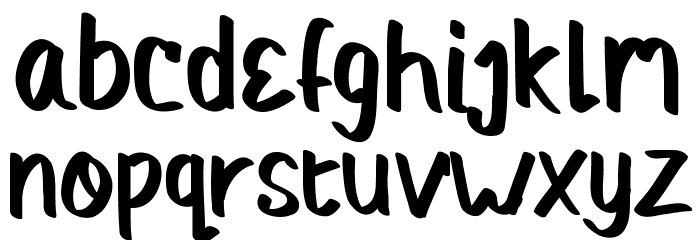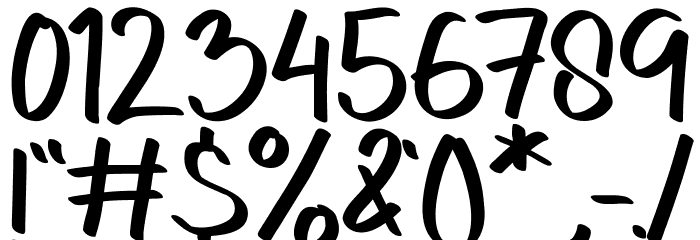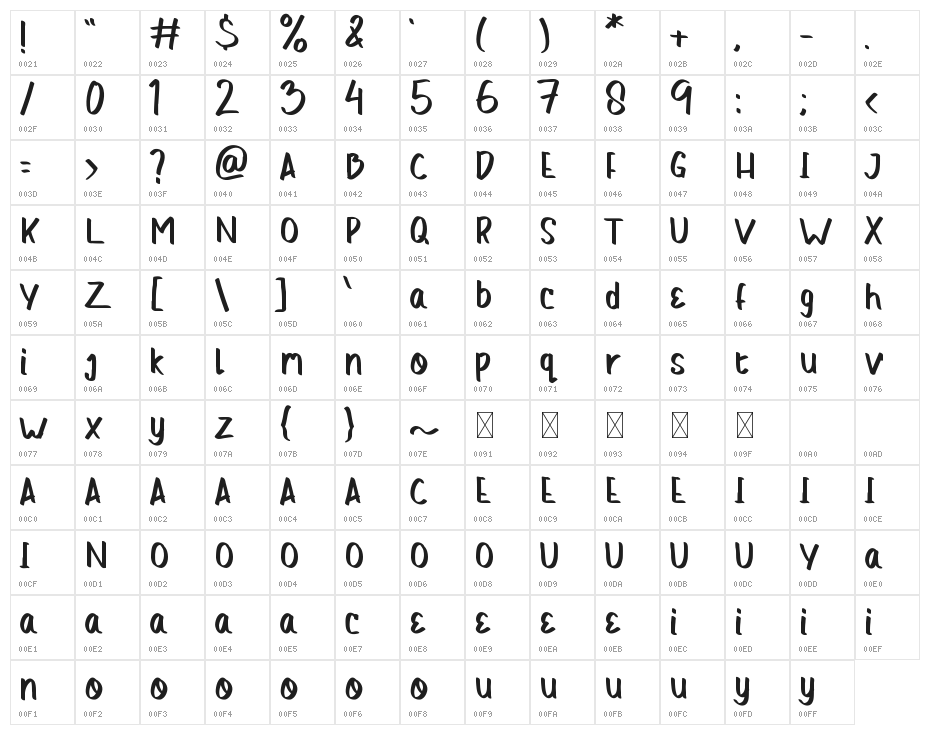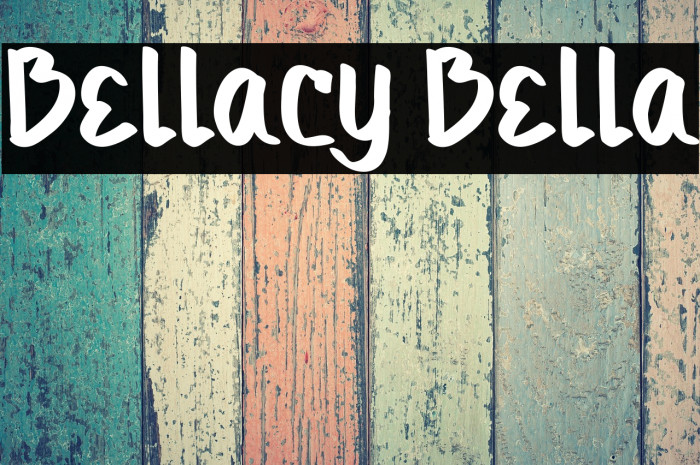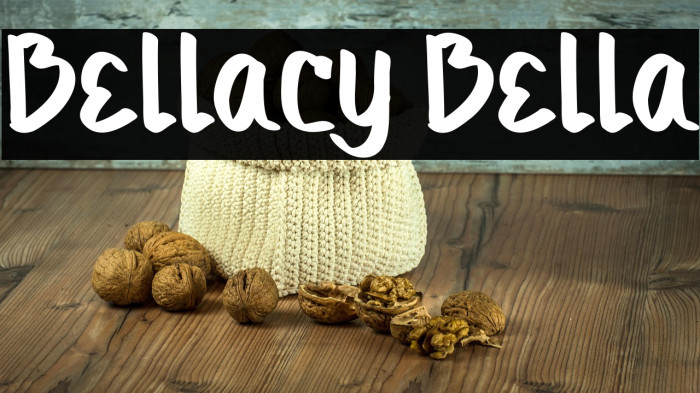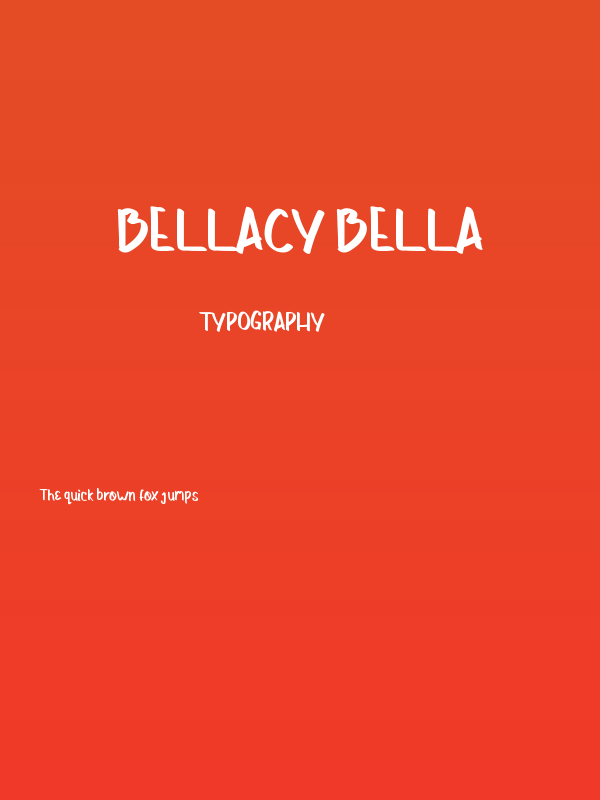
Bellacy Bella Font
This font features a playful and casual handwritten style, characterized by its bold and rounded letterforms. The uppercase and lowercase letters maintain a consistent flow, with slightly irregular strokes that add a personal touch. The numbers and special characters are crafted with the same whimsical flair, making them stand out in any design. The overall appearance is friendly and approachable, suitable for projects that require a touch of personality and warmth.
A bold, playful handwritten font with rounded, casual letterforms.
- Proposed Projects: Ideal for greeting cards, children's books, playful branding, and social media graphics.
- Overall Style: Casual, Playful
- Use Case: Headlines, Logos, Informal Text